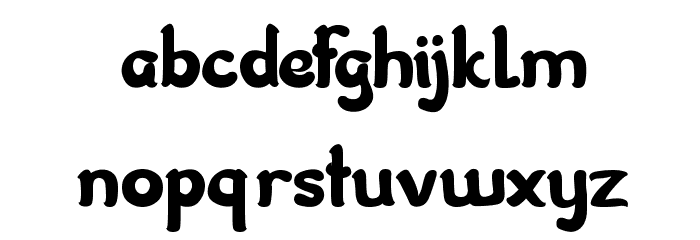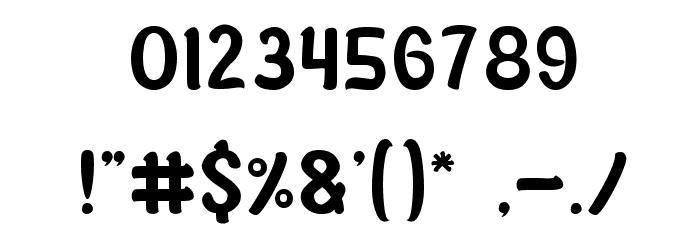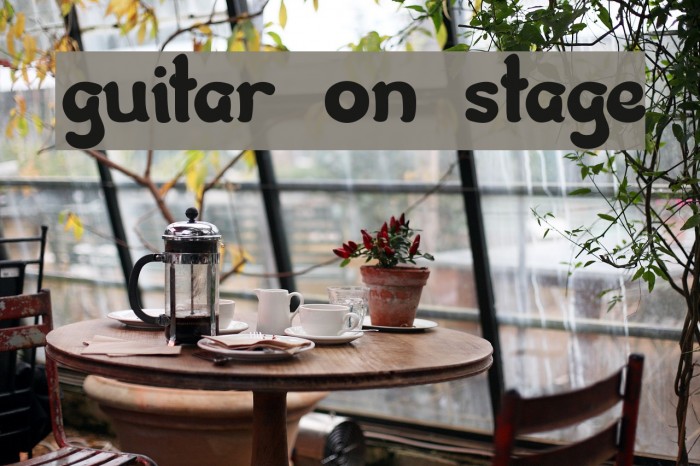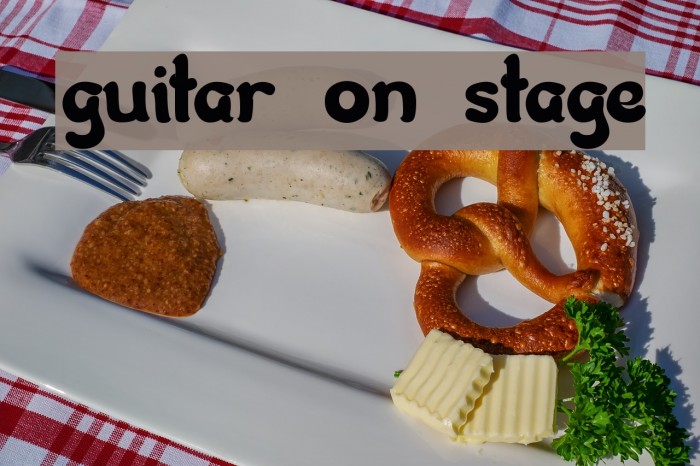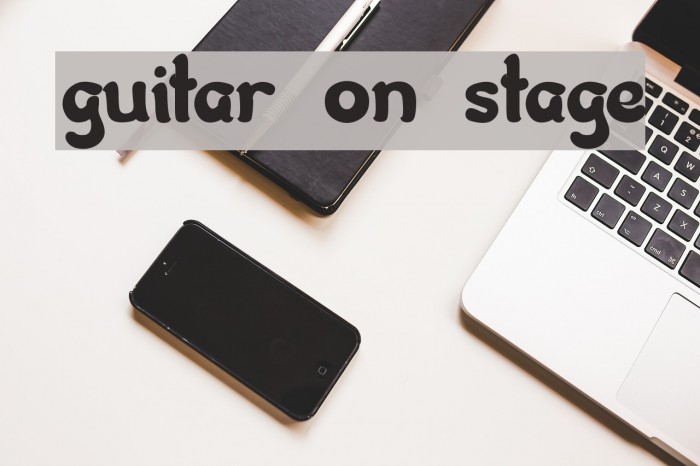
guitar on stage Font
This font features a playful and rounded style, characterized by its bold and slightly whimsical appearance. The letters have a consistent thickness, contributing to a uniform look across both uppercase and lowercase characters. The rounded edges and smooth curves give it a friendly and approachable feel, making it suitable for informal and fun projects. The numerals and special characters maintain the same playful aesthetic, ensuring consistency throughout. Its boldness ensures readability while the rounded forms add a touch of creativity and warmth.
A playful, rounded font with bold and consistent strokes.
- Proposed Projects: Ideal for children's books, playful branding, casual invitations, and creative posters.
- Overall Style: Playful